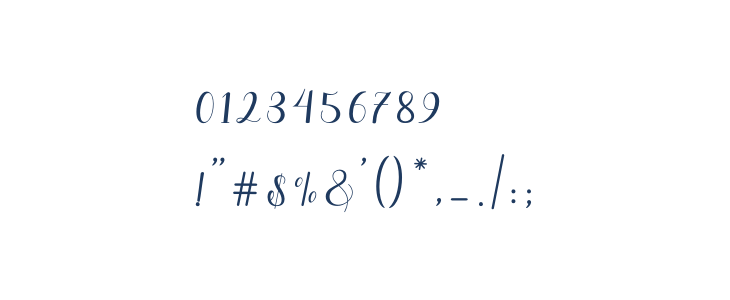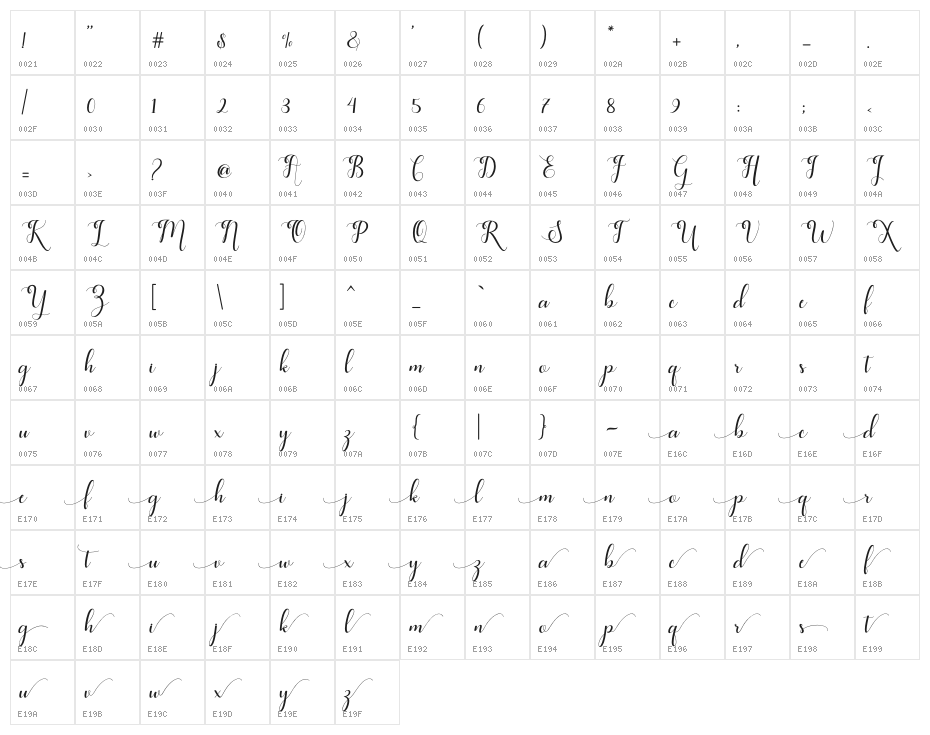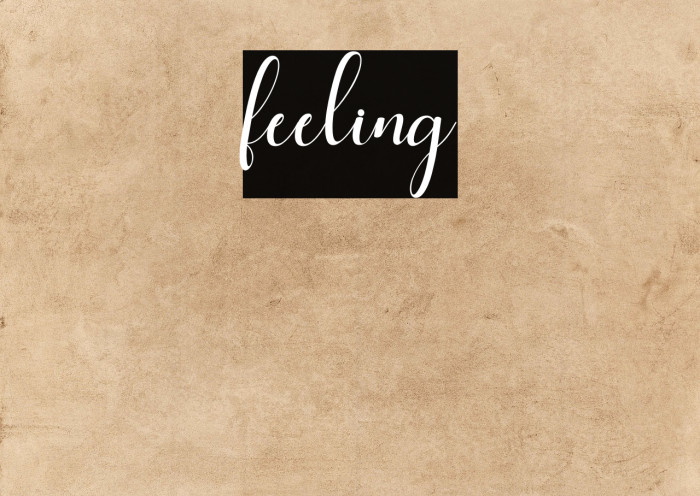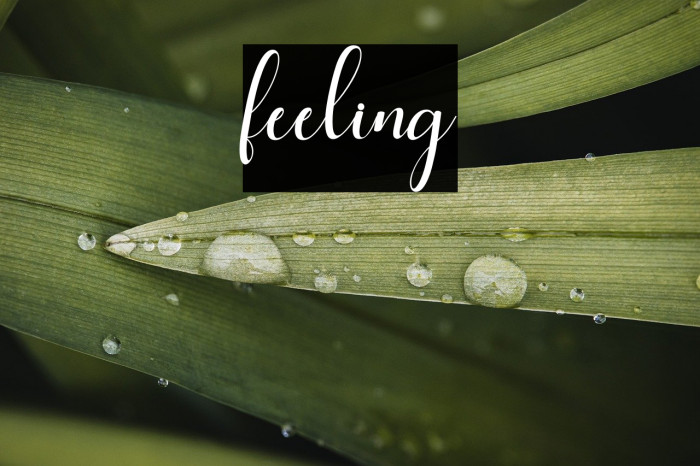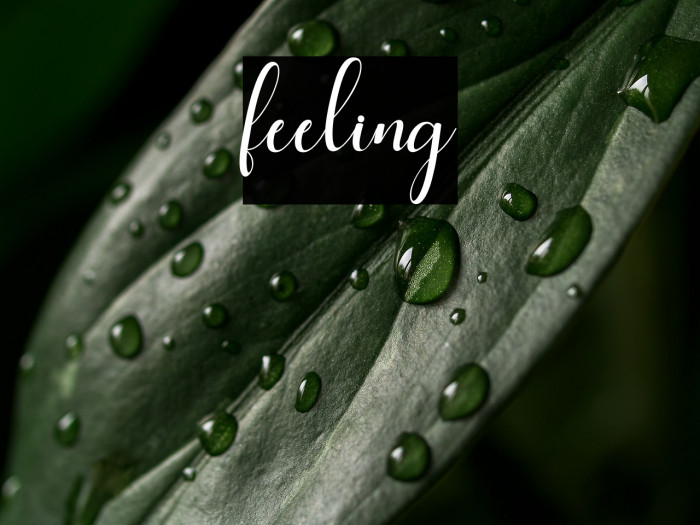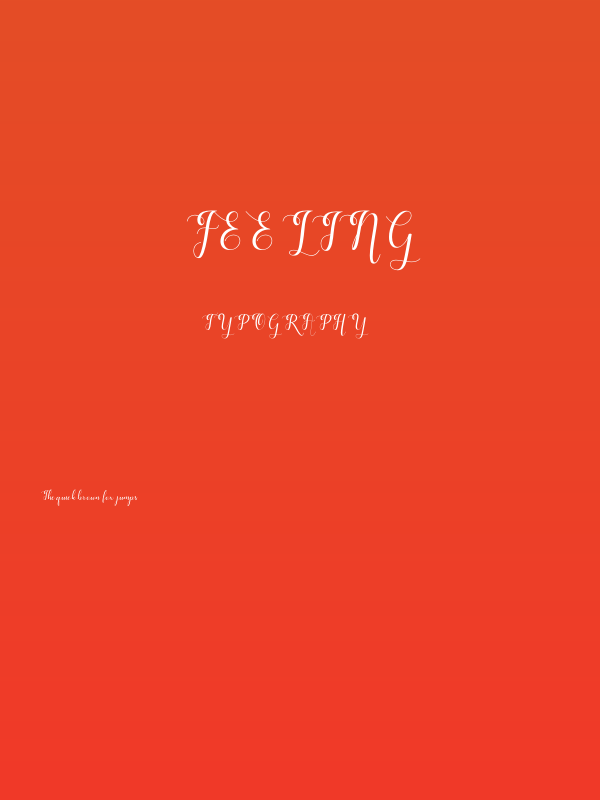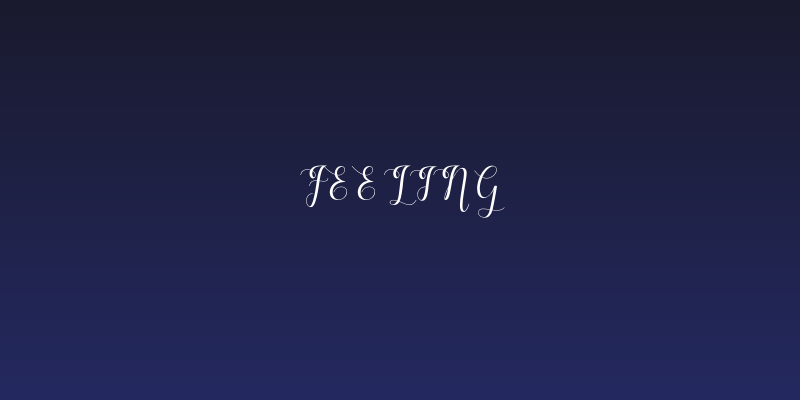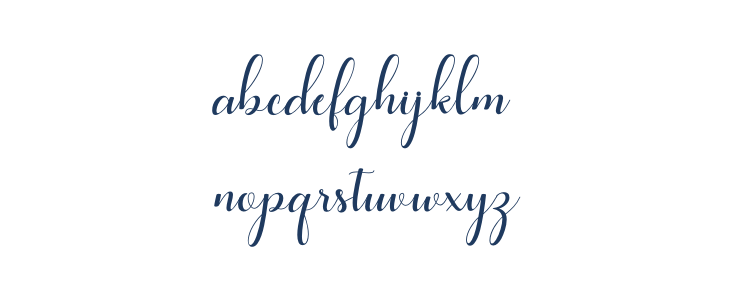
feeling Font
feeling Description
This elegant script font features a flowing, cursive style with intricate loops and swashes, giving it a sophisticated and artistic appearance. The uppercase letters are adorned with elaborate flourishes, while the lowercase letters maintain a smooth, connected flow. The numerals are stylish yet readable, complementing the overall aesthetic. Special characters are thoughtfully designed to match the font's ornate style, making it suitable for decorative purposes. The font's graceful curves and high contrast between thick and thin strokes add to its charm, making it ideal for projects that require a touch of elegance and refinement.
| Overall Style | Elegant, Decorative |
| Use Case | Logos, Invitations, Decorative text |
| Proposed Projects | Wedding invitations, greeting cards, branding, and elegant logo designs. |